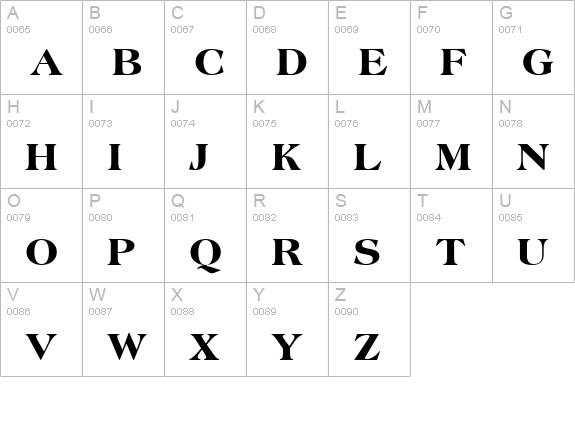
Countryside Black SSi Extra Bold is a maximum-weight, dramatic variant in the Countryside typeface family \xE2\x80\x94 well suited to maximum-impact headlines, posters, and packaging.
Countryside Black SSi Extra Bold font exudes a sense of strength and modernity with its bold and impactful design. This versatile typeface is perfect for adding a touch of sophistication to any project, whether it's for print or digital use. The clean lines and sharp edges of this font make it stand out, while still maintaining a sense of elegance. The best part? Countryside Black SSi Extra Bold font is available for free download at FontsMarket.com. This means you can easily access this stunning font and use it in your projects without any cost. Whether you're working on a branding project, a poster design, or any other creative endeavor, Countryside Black SSi Extra Bold font is sure to make a statement. Download it today and elevate your designs with this stylish and impactful typeface.